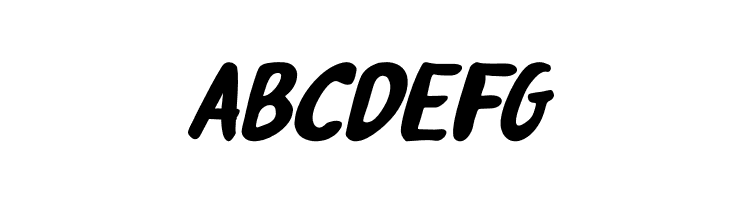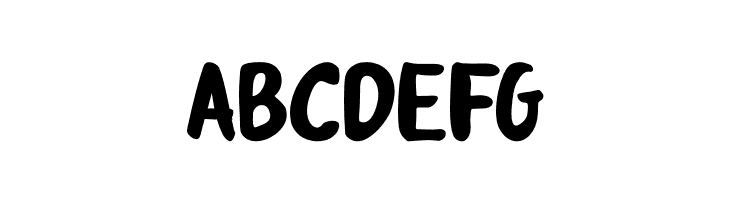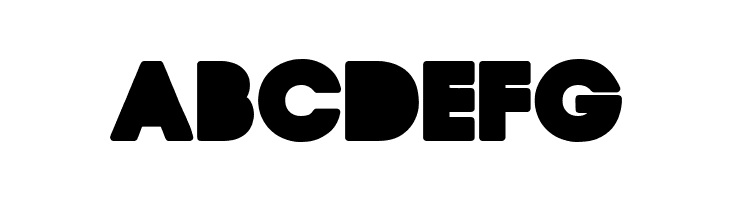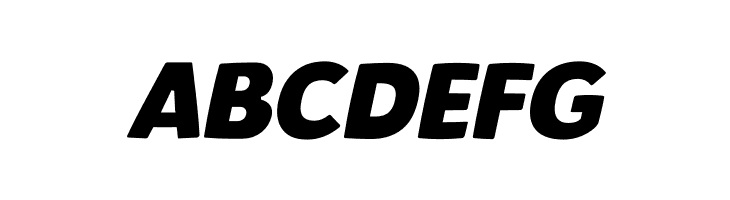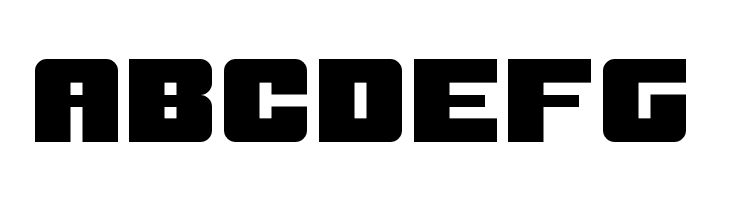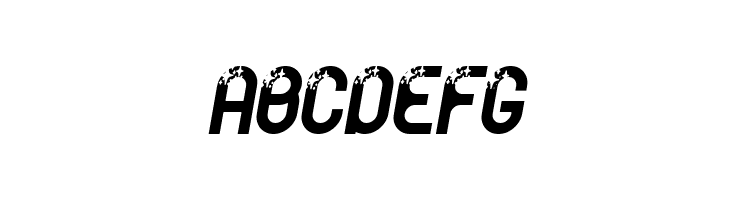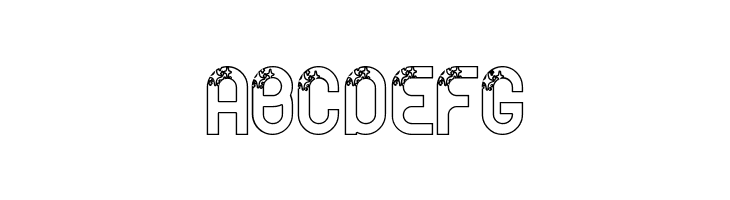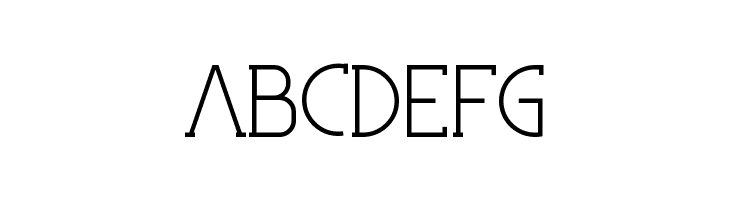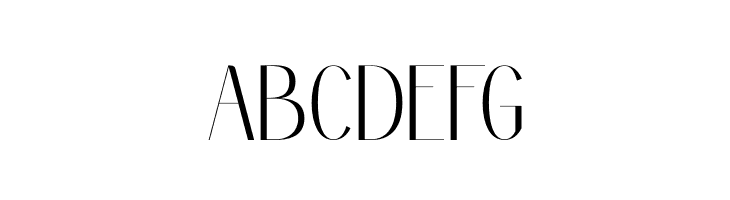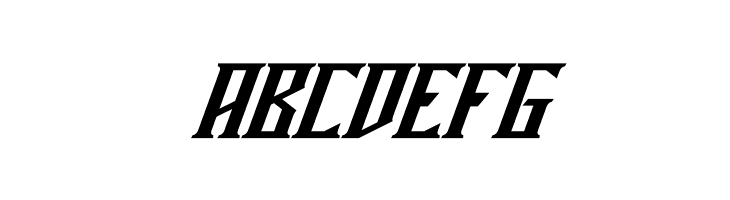
A bold, geometric font with a condensed and modern style.
A bold, twisted, and playful font with a hand-drawn, energetic style.
A modern italic font with clean lines and a subtle slant.
A bold, italicized handwritten font with a playful and dynamic style.
A bold, playful handwritten font with rounded edges and thick strokes.
A playful, hand-drawn outline font with bold, rounded characters.
A playful, italic outline font with bold, rounded characters.
A modern, elegant handwritten font with fluid, cursive letterforms.
A bold, geometric font with a modern and playful aesthetic, ideal for impactful designs.
A bold, italicized font with a dynamic and energetic style.
A bold, geometric sans-serif font with a modern and assertive style.
A bold, italicized font with a distressed, grunge texture and modern style.
A modern decorative outline font with intricate detailing.
An elegant script font with flowing, interconnected letters and refined flourishes.
A modern, geometric font with elegant, angular uppercase and smooth lowercase letters.
A modern, high-contrast font with elegant and slender characters.
A bold, italic font with sharp, angular edges and a dynamic style.
A modern, geometric sans-serif font with a clean and minimalistic design.
A modern, geometric sans-serif font with clean lines and balanced spacing.
A modern, clean sans-serif font with geometric shapes and uniform stroke width.
A modern, geometric font with rounded edges and a clean, monospaced appearance.
A modern, clean sans-serif font with uniform strokes and smooth curves.
A modern, clean sans-serif font with uniform stroke width and minimalistic design.
A modern, rounded sans-serif font with clean lines and balanced proportions.
A bold, playful font with a three-dimensional shadow effect and dynamic curves.
A bold, elegant script font with smooth, connected strokes.
A bold, italicized font with a dynamic and modern style.
A modern, geometric font with sharp angles and smooth curves.
A bold, modern font with strong, thick strokes and a robust appearance.
A dynamic and expressive handwritten font with fluid, flowing letterforms.
A bold, italic font with a halftone pattern, exuding speed and energy.
A bold, condensed font with sharp angles and uniform stroke width.
A bold, condensed font with uniform strokes and a modern, geometric style.
A bold, geometric font with playful and quirky letterforms.
A playful, bold font with rounded, bubbly characters and a friendly aesthetic.